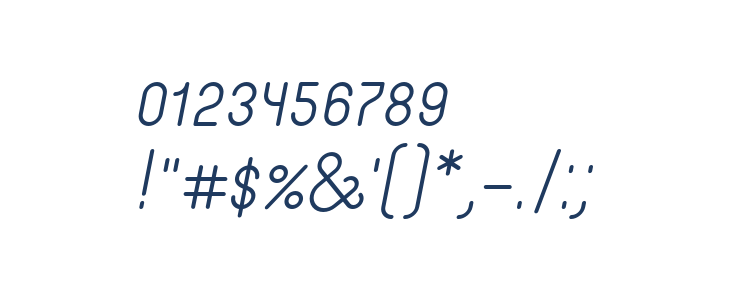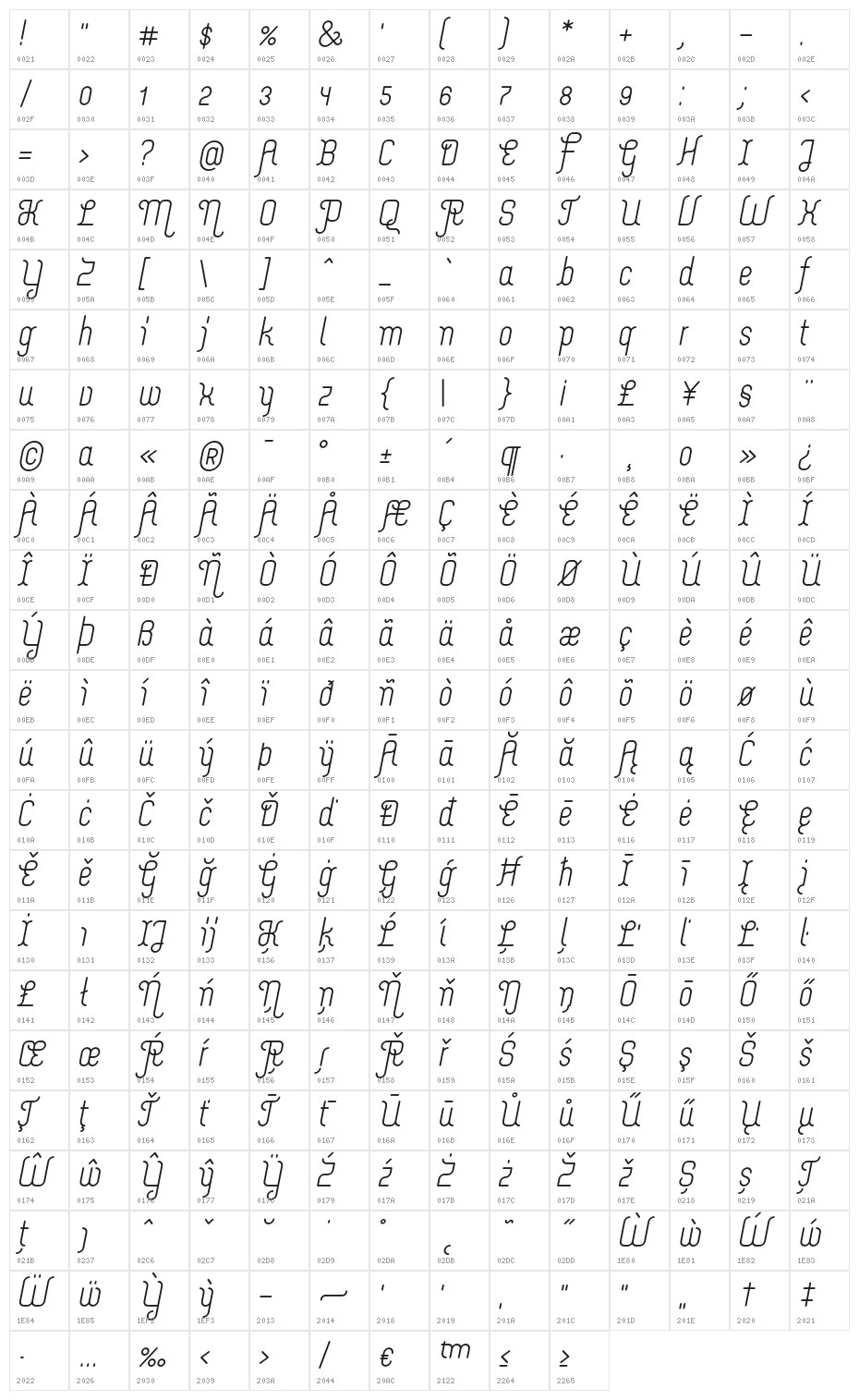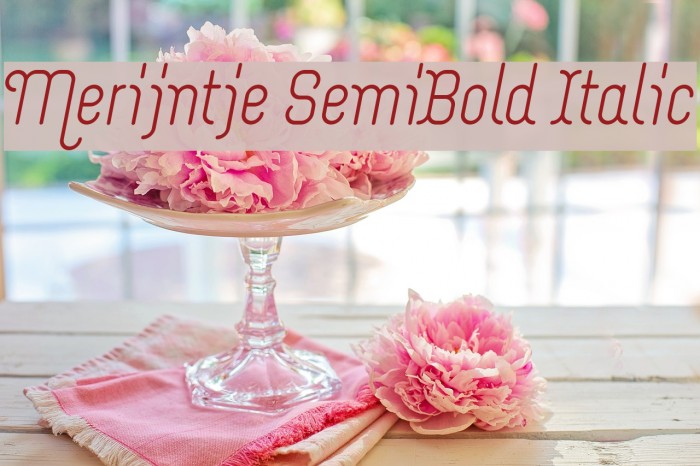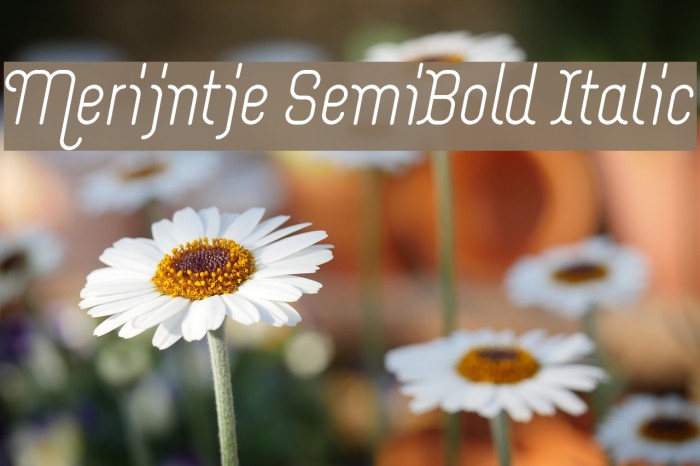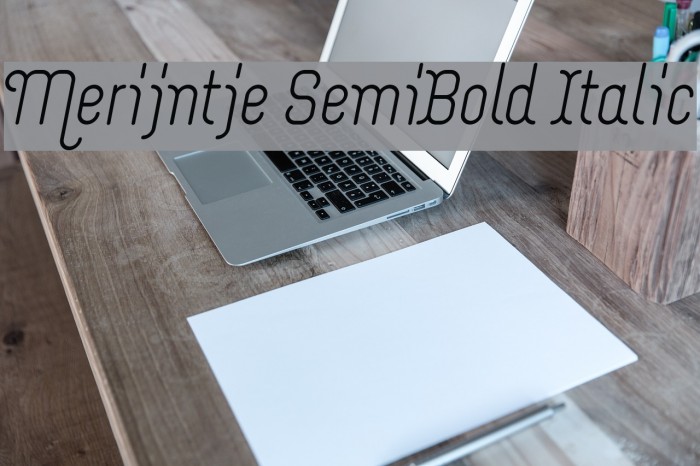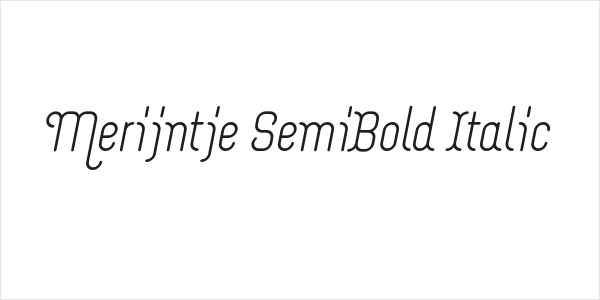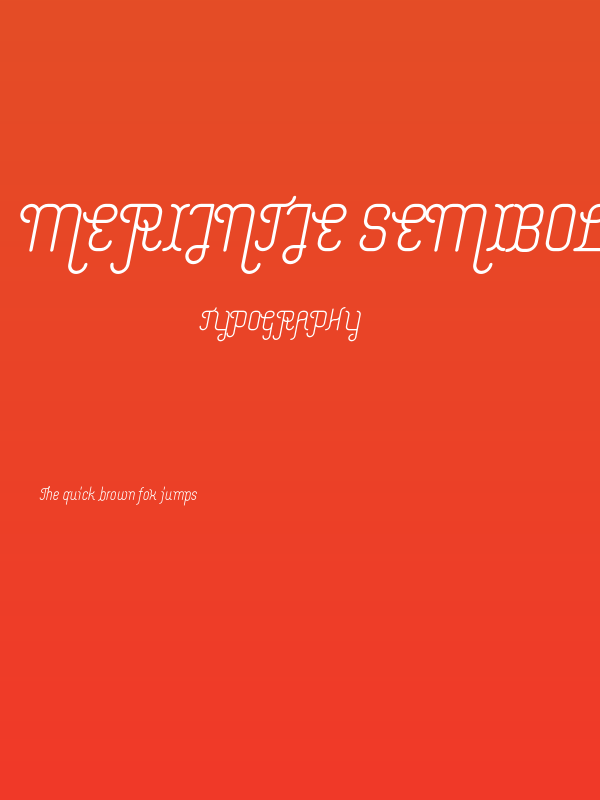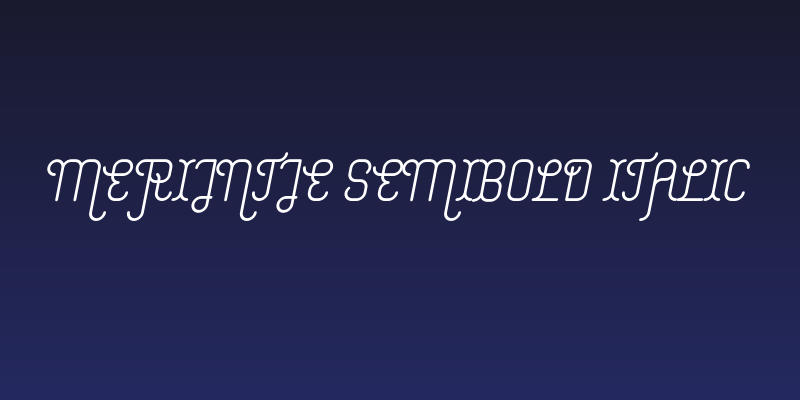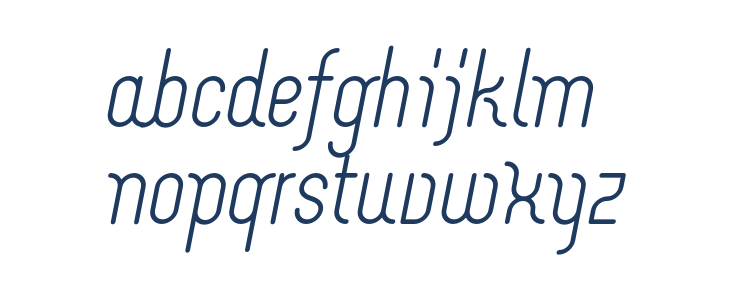
Merijntje SemiBold Italic Font
Merijntje SemiBold Italic Description
This font features a unique blend of semi-bold weight and italic style, creating a dynamic and fluid appearance. The characters are elongated with a slight slant, giving them a sense of motion and elegance. The strokes are consistent in thickness, providing a medium contrast that enhances readability while maintaining a stylish flair. The font includes a full set of uppercase and lowercase letters, numerals, and a variety of special characters, making it versatile for various design needs. Its modern and slightly decorative style makes it suitable for creative projects that require a touch of sophistication.